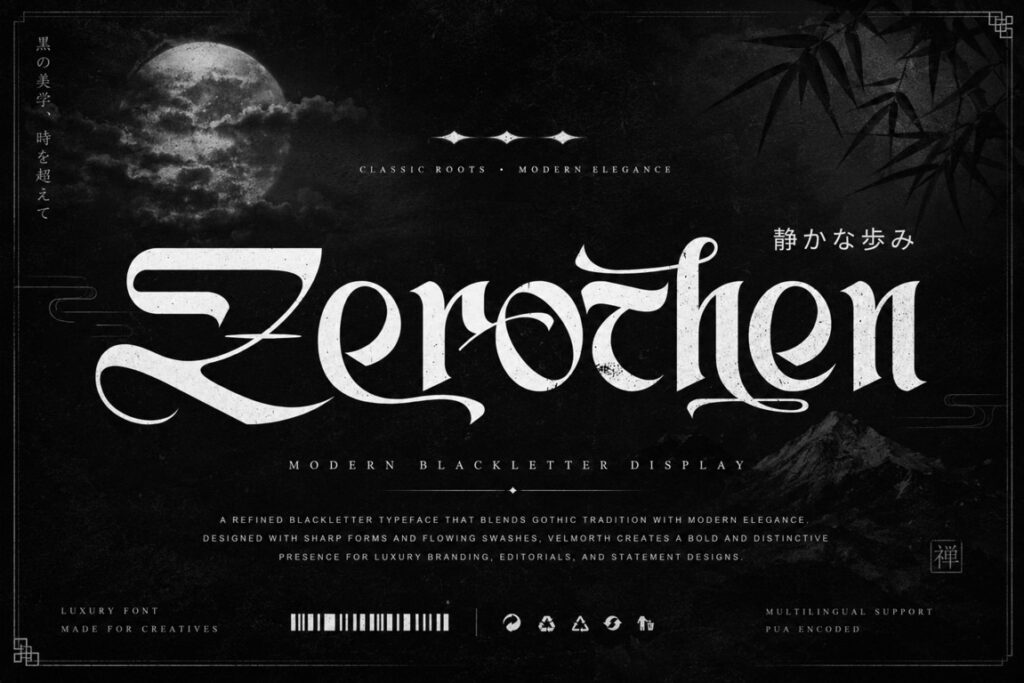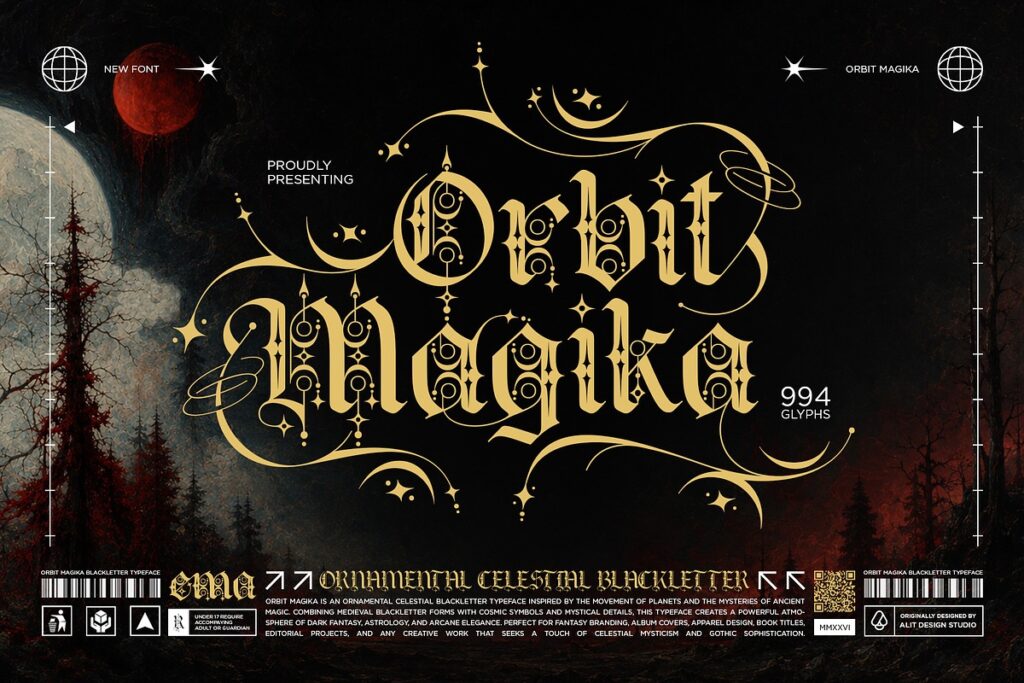
Zerothen – Modern Gothic Display Font
Zerothen – Modern Gothic Display Font brings a balanced structure and contemporary look, making it suitable for both digital and print design. Zerothen is a modern blackletter display font that combines the dramatic character of traditional Gothic typography with refined curves, flowing swashes, and contemporary elegance.
Orbit Magika Blackletter Font
Orbit Magika Blackletter Font is a clean and thoughtfully built typeface that works seamlessly for both professional branding and everyday creative uses. Orbit Magika, a breathtaking ornamental blackletter typeface inspired by the cosmic dance of the planets and the hidden mysteries of ancient magic.
Valkor Font Family
Valkor Font Family is a distinctive and expressive font crafted to bring personality, structure, and creative energy into your projects. Valkor is a bold condensed display sans family crafted for designers who demand powerful typography with outstanding versatility.